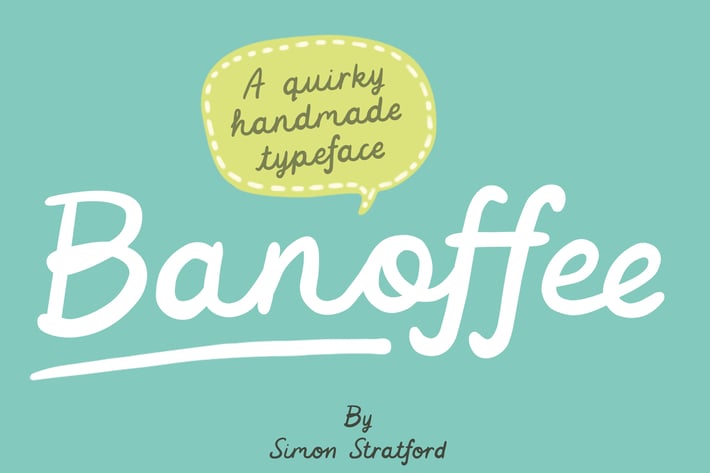
Banoffee font
Introducing Banoffee my latest handmade script font. It's a playful, somewhat kooky typeface that tries its best to look like real handwriting.
It uses OpenType features and has ligatures, terminals, and realistic looking connections. The character set includes western, central and south-eastern European glyphs. You will need to enable contextual alternatives in your design application.
Banoffee is perfect for greetings cards, posters and branding or anything where you want that cheerful handmade look.
The font also includes a small collection of ornaments.
The Banoffee font includes;
One weight
One decorative ornament set
Upper and lowercase glyphs
Punctuation and Symbols
Initial and terminal forms
Central European characters
Western European characters
* South Eastern European characters